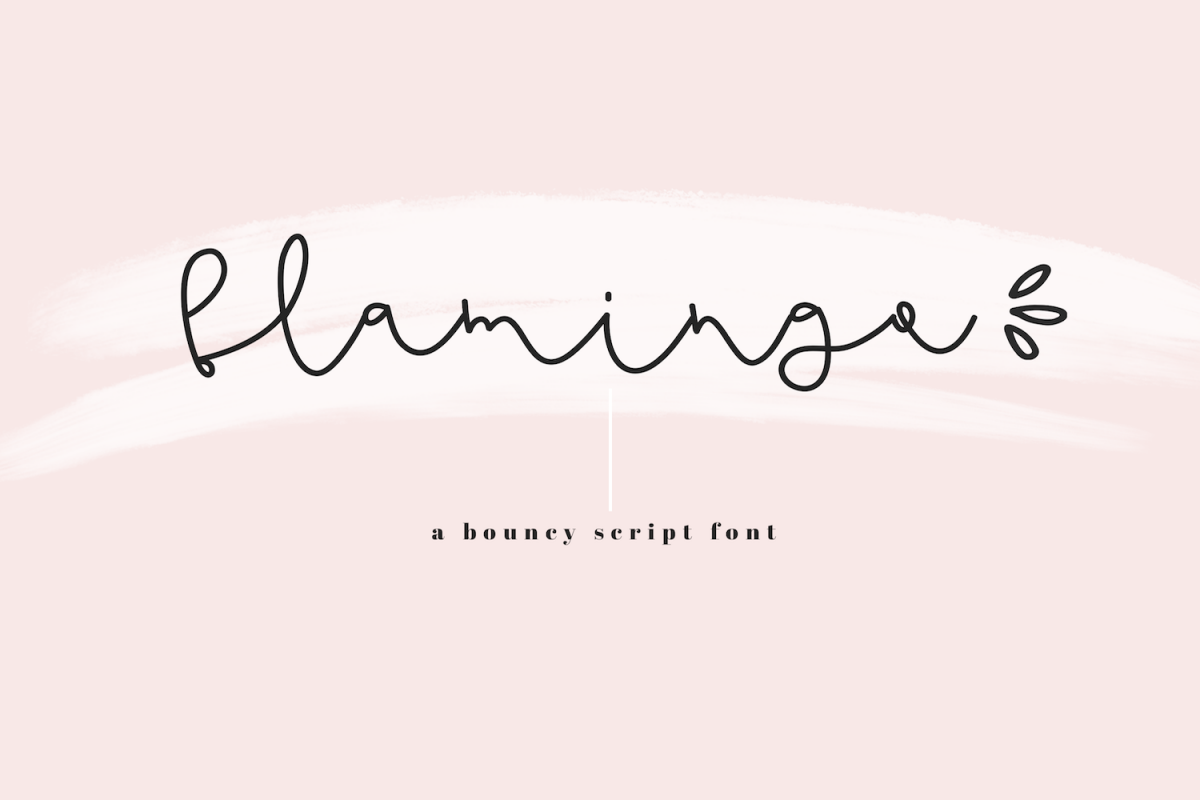
Flamingo - Handwritten Script Font
Flamingo-Medium
Flamingo is a fun, bouncy script font.
This font is perfect for quotes, headings, designs, logos, invitations and more!
This font *does* include accent characters.